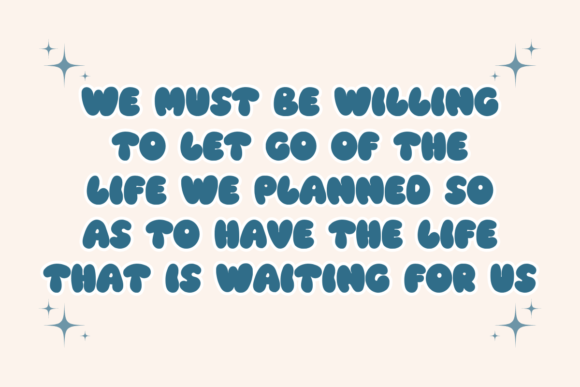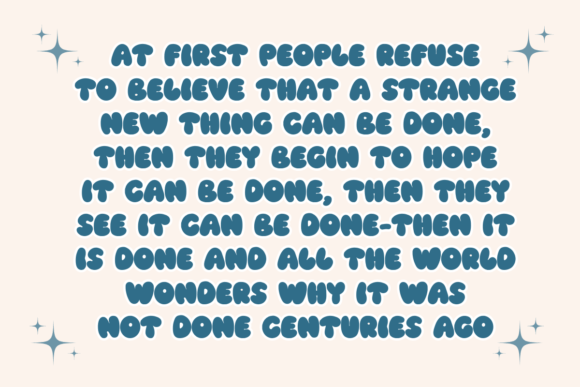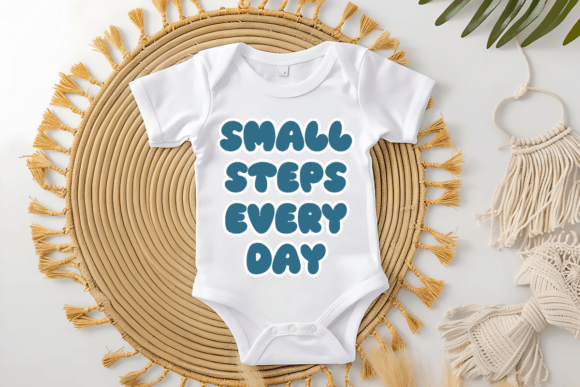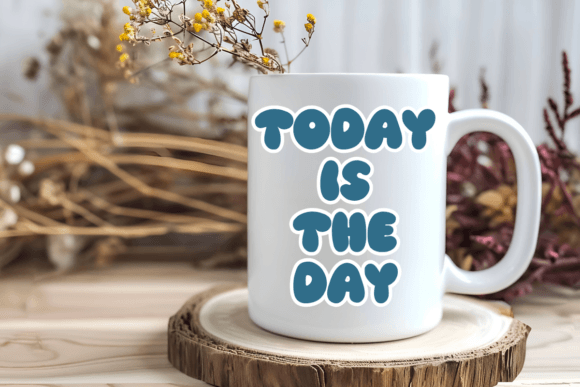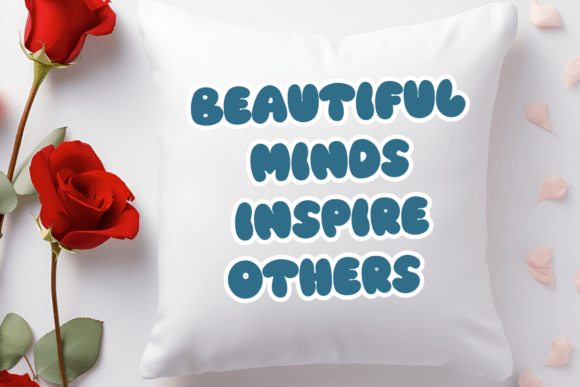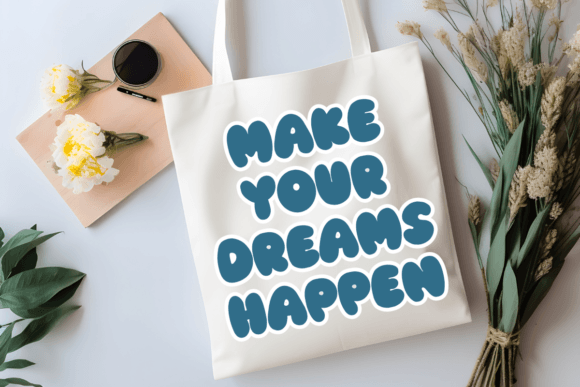
Introduction to Kinder Boys Font
Do you ever find yourself staring at a blank design canvas, waiting for inspiration to strike? For many creatives, those moments of blank-page paralysis can be frustrating, but also an opportunity to experiment with new ideas. It was one of those moments when I stumbled upon the Kinder Boys Font, and I knew I had to share it with fellow designers.
With its adorable and quirky design, the Kinder Boys Font adds a touch of whimsy to any creative project. Whether you’re designing a logo, creating a social media graphic, or crafting a unique invitation, this charming display font is sure to make your design stand out. And the best part? It’s available for free download, making it an accessible design resource for designers of all levels.
Key Features of Kinder Boys Font
- High-quality font design with a transparent background, perfect for creative projects that require a clean and modern look.
- Includes a range of characters, including uppercase and lowercase letters, numbers, and punctuation marks, making it suitable for various design applications.
- Designed with a unique, playful style that is perfect for children’s projects, branding, and marketing materials.
Honest Review: Kinder Boys Font
I recently stumbled upon the Kinder Boys Font while searching for a fun and playful font for a creative project. I was excited to dive in and see if it lived up to my expectations.
The Kinder Boys Font is a high-quality font that offers a transparent background, making it easy to use and customize for various design projects. The font itself is a mix of handwritten and sans-serif styles, giving it a unique and playful feel. I loved how versatile it was and how it added a touch of whimsy to my design.
- ✨ Transparent background for easy customization
- ✨ Unique blend of handwritten and sans-serif styles
- ⚠️ Limited font styles and variations
- ⚠️ Not suitable for formal or professional projects
Overall, I was impressed with the Kinder Boys Font and would recommend it for creative projects where a playful and whimsical feel is desired. However, it may not be the best choice for formal or professional projects due to its limitations.
Kinder Boys Font
To get the most out of the Kinder Boys Font, use it in headings and titles for a creative and modern look. Common use cases include:
Alternatives to Kinder Boys Font
Great Vibes Font is a high-quality, handwritten font ideal for creative projects requiring a unique and playful touch. It’s available for free download and offers a transparent background, making it perfect for adding a personal touch to designs. Great Vibes Font is a great alternative to Kinder Boys Font for designers looking for a similar feel but with a more laid-back and casual vibe.
Playfair Display Font is a luxurious and elegant font that’s perfect for high-end creative projects. Its high-quality design makes it an excellent choice for designers who want to add a touch of sophistication to their work. Although it’s not a free download, Playfair Display Font is a great alternative to Kinder Boys Font for designers who want a more refined and polished look.
Alex Brush Font is a beautiful and elegant script font that’s perfect for creative projects requiring a touch of sophistication. Its high-quality design and transparent background make it an excellent choice for designers who want to add a personal touch to their work. Alex Brush Font is a great alternative to Kinder Boys Font for designers who want a more refined and elegant look.
Does the Kinder Boys Font have a transparent background?
No, the Kinder Boys Font is a solid font and does not have a transparent background. However, you can use a design tool or software to create a design with a transparent background, incorporating the Kinder Boys Font as needed.